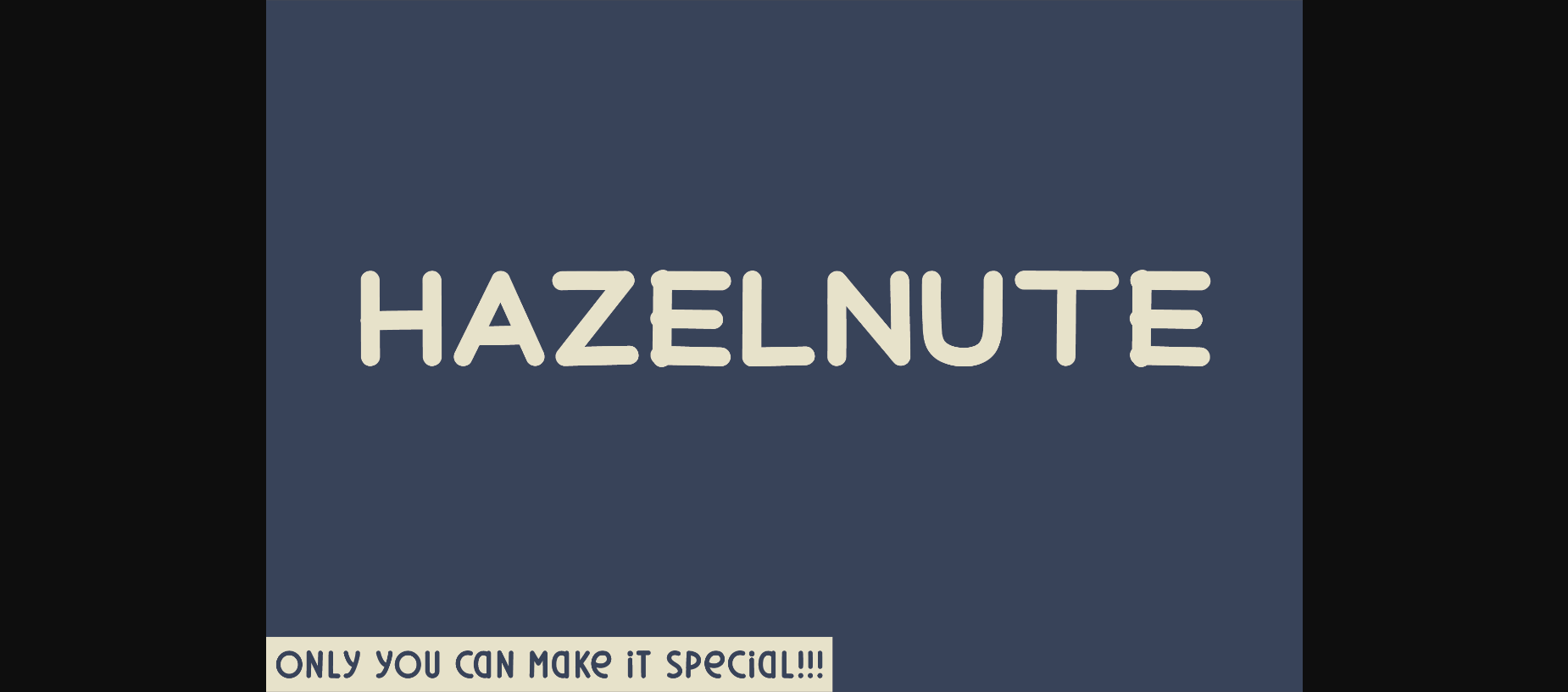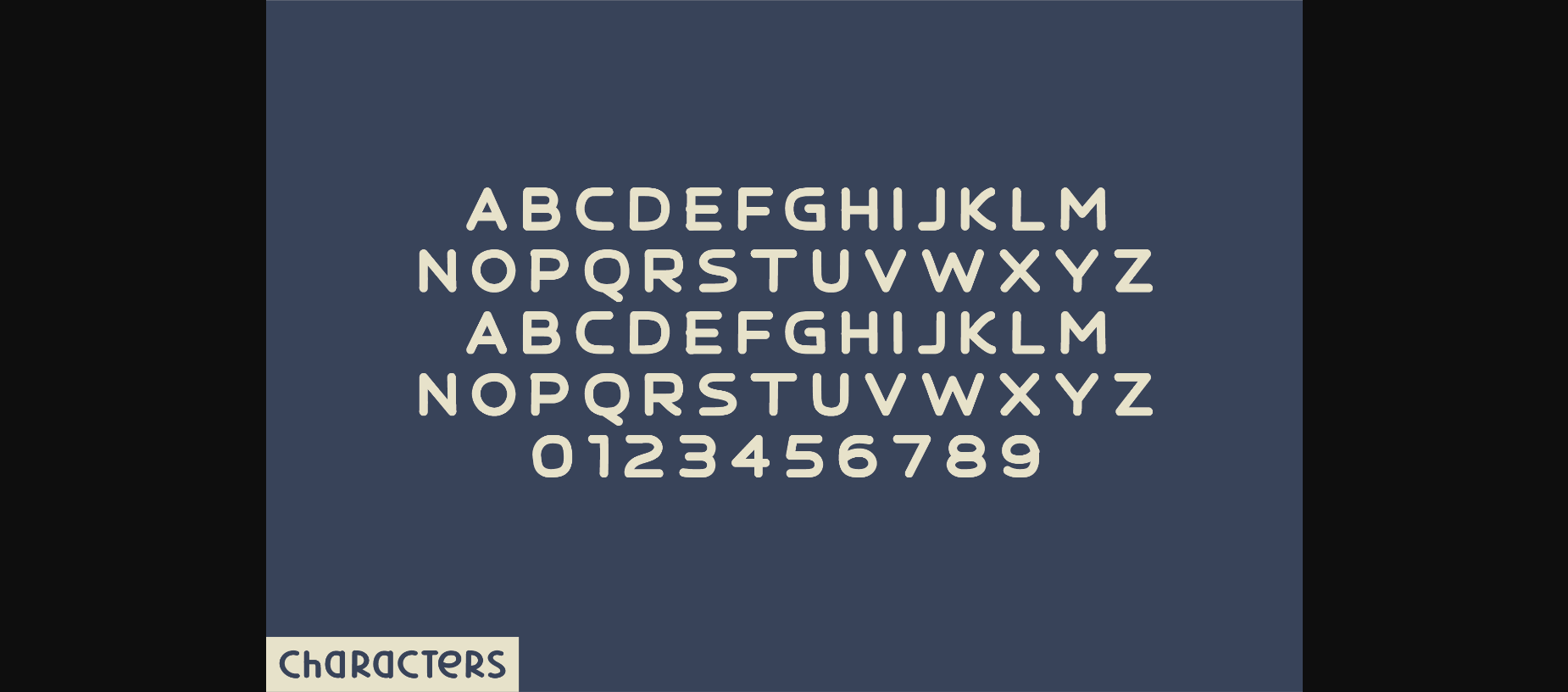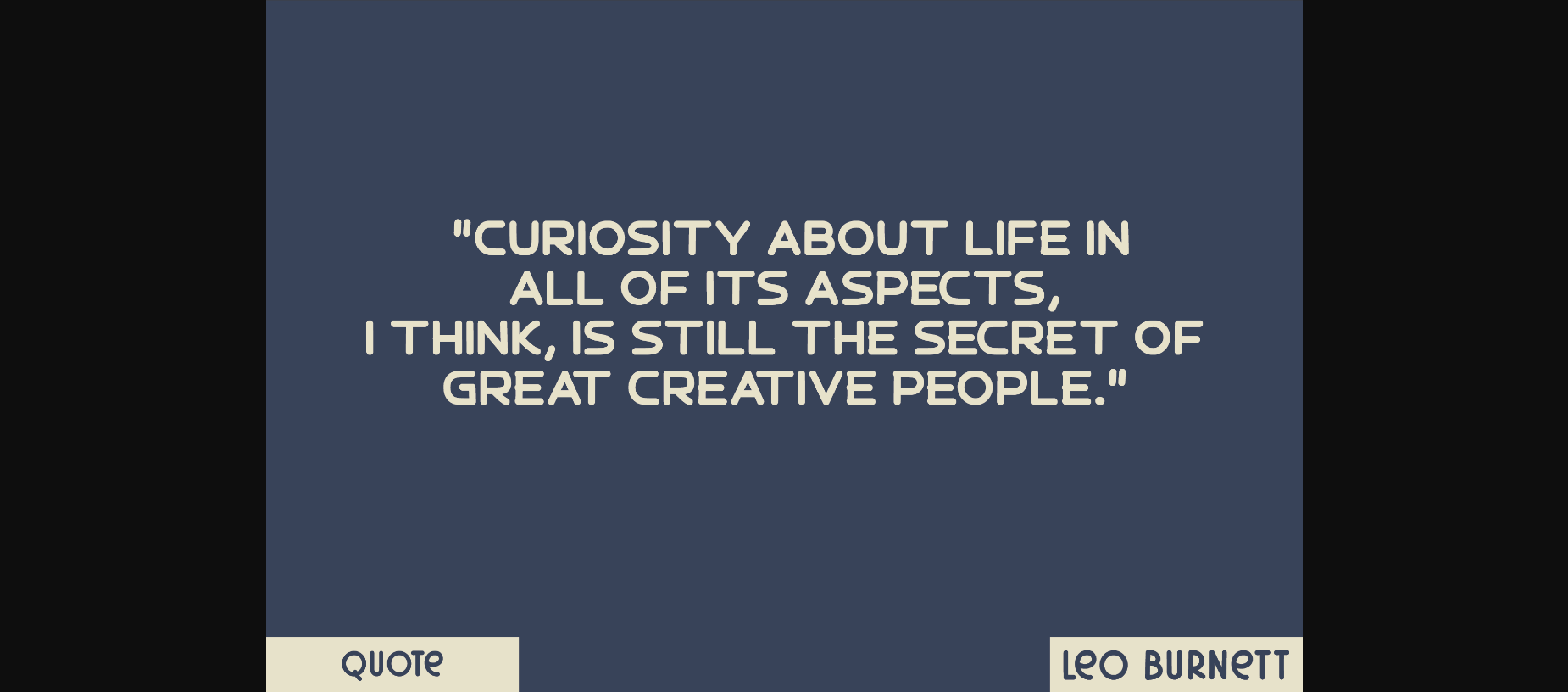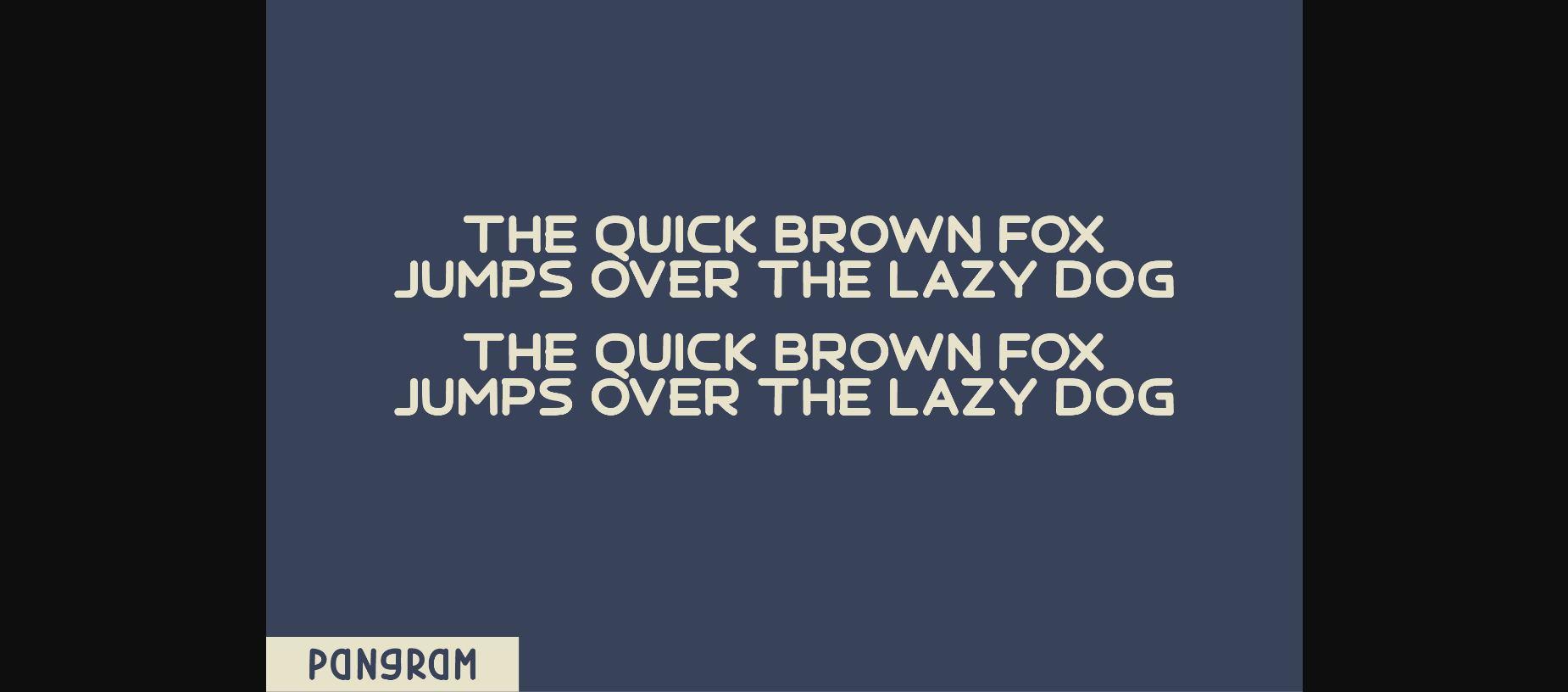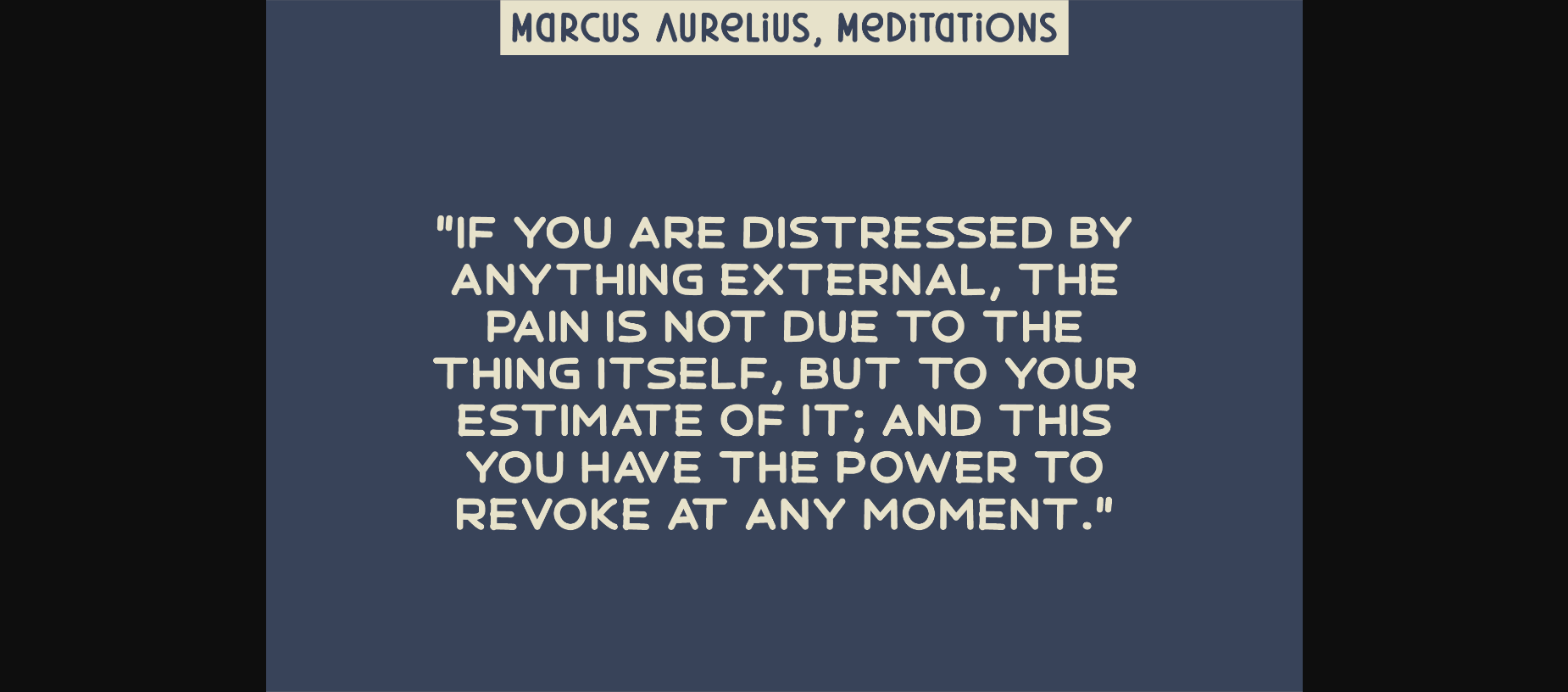
HomeSans Serif FontsHazelnuts Font Sans Serif Fonts Hazelnuts Font FacebookXPinterestWhatsApp 1 of 7 ... Hazelnuts Font Poster 2... Hazelnuts Font Poster 3... Hazelnuts Font Poster 4... Hazelnuts Font Poster 5... Hazelnuts Font Poster 6... Hazelnuts Font Poster 7... About Hazelnuts Font Hazelnuts is a natural sans serif font created without changing a single node in each character’s indentation – this makes this font very interesting and unique. Perfect for quotes, notes, tees, and any product design. DOWNLOAD NOW People also explored Belly and Park Font Tokyo Sans Font Corlus Font Diary Story Font Hollyn Font Single Font Matyane Font Grimstica Font Morany Font 404 0 TagsHazelnuts Font Previous articleBaklava FontNext articleBuontalenti Font LEAVE A REPLY Cancel reply Comment: Please enter your comment! Name:* Please enter your name here Email:* You have entered an incorrect email address! Please enter your email address here Website: Save my name, email, and website in this browser for the next time I comment. Personal Use Free Pompom Personal Use Free Read more about this font Vilsuve Personal Use Free Read more about this font Metal Lord Personal Use Free Read more about this font Stereofidelic Personal Use Free Read more about this font BLOG How to Cut Any Font on Cricut: Convert a Font to SVG (Free) Turn any font into a clean SVG so it cuts crisp on Cricut - a quick 3-step workflow using a free font-to-SVG tool. The 10 Best Handwriting Fonts to Add Personality to Your Designs Modern Sans-Serif Fonts That Brands Love in 2025 Best Fonts for T-Shirt Design – Top 2025 Picks